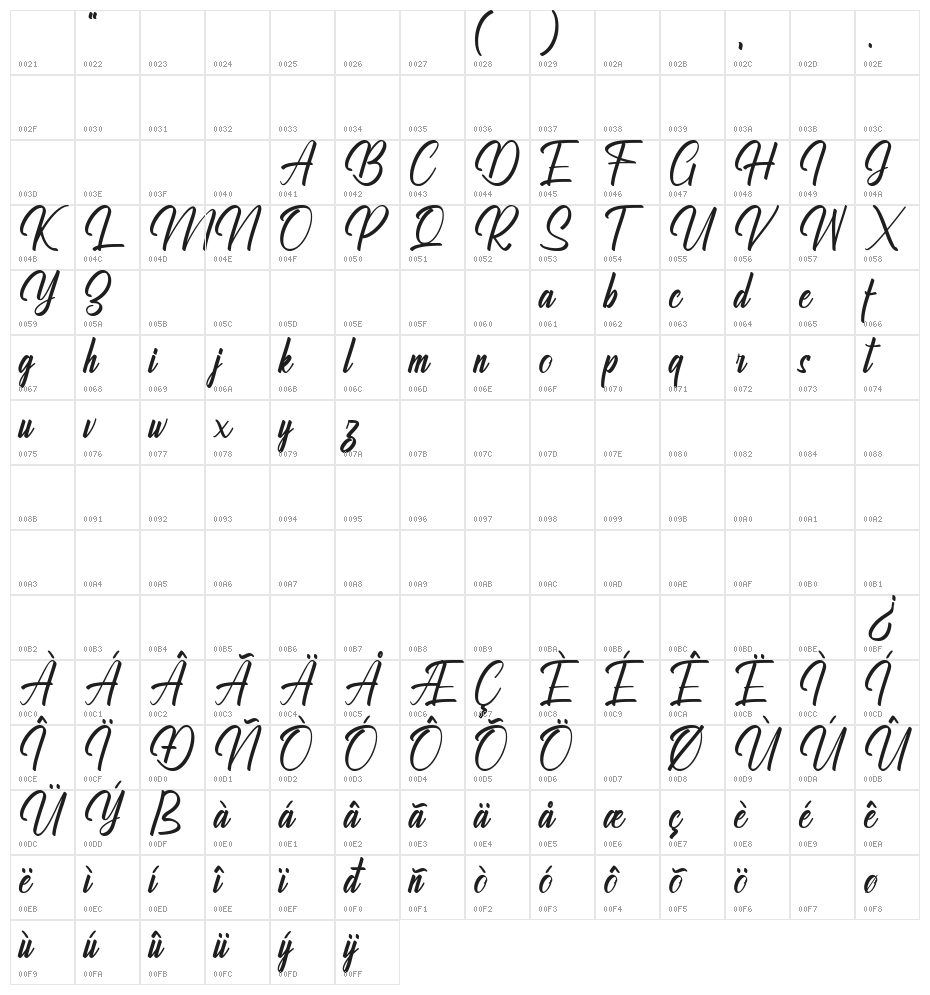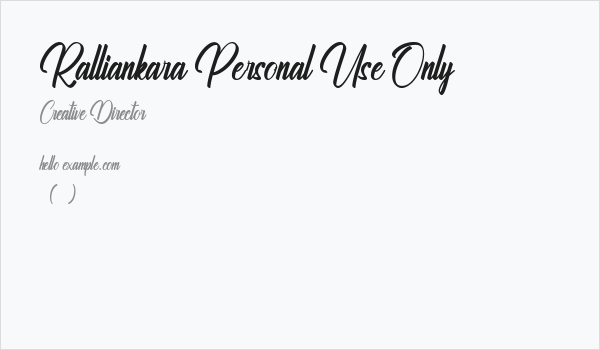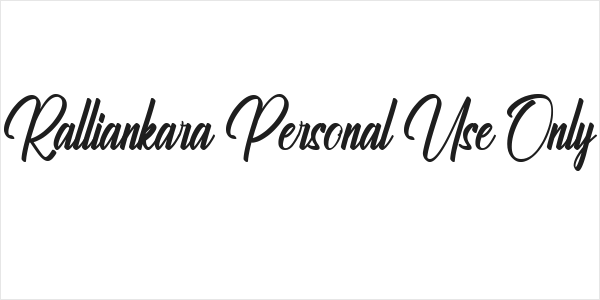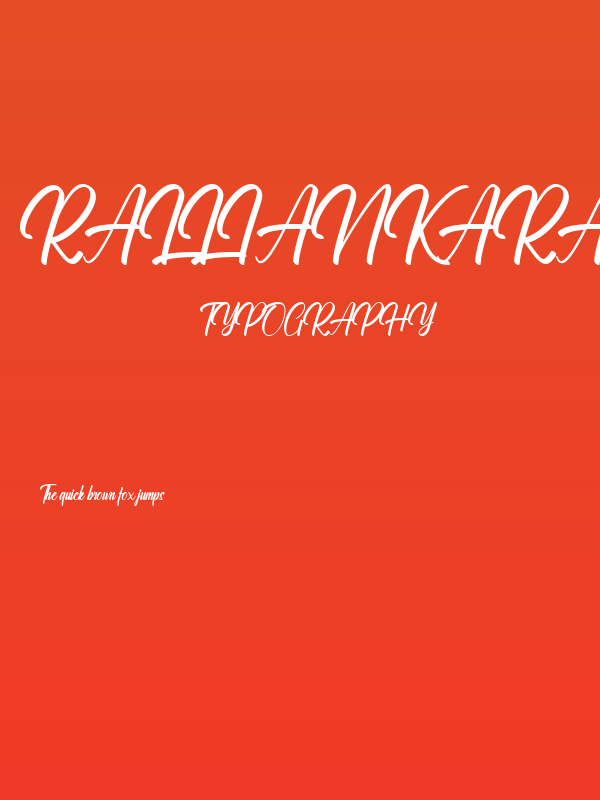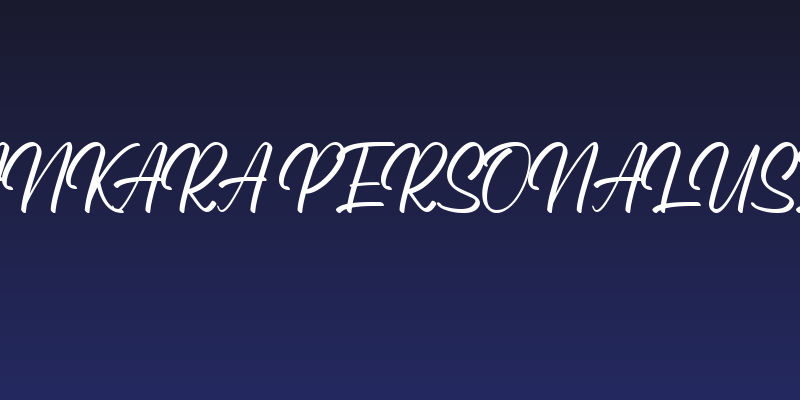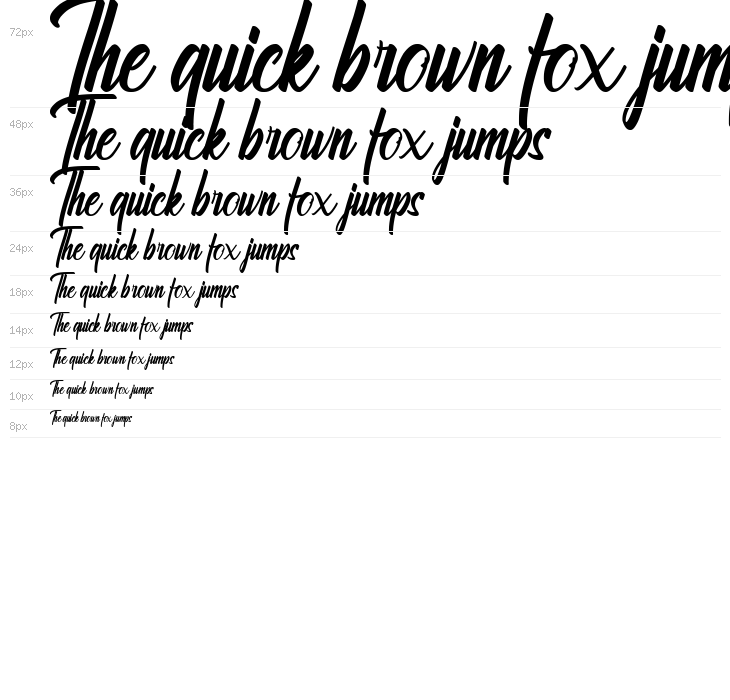
Ralliankara Personal Use Only Font
Ralliankara Personal Use Only Description
This font features a dynamic and elegant script style with a modern touch. The uppercase letters are characterized by their flowing, interconnected strokes, giving a sense of movement and fluidity. The lowercase letters maintain a similar style, with smooth curves and a slightly more compact form. The overall appearance is both sophisticated and approachable, making it suitable for a variety of design contexts. The numerals and special characters are consistent with the script style, ensuring a cohesive look across all elements. This font is perfect for projects that require a personal, handwritten feel while maintaining a polished and professional appearance.
| Proposed Projects | Ideal for wedding invitations, branding, greeting cards, and elegant packaging designs. |